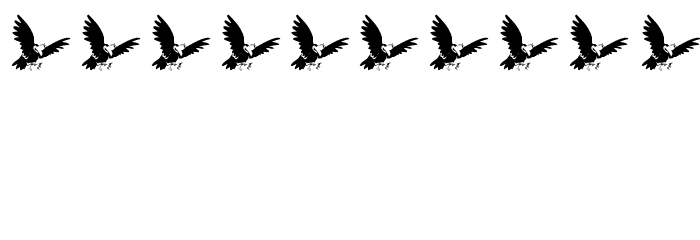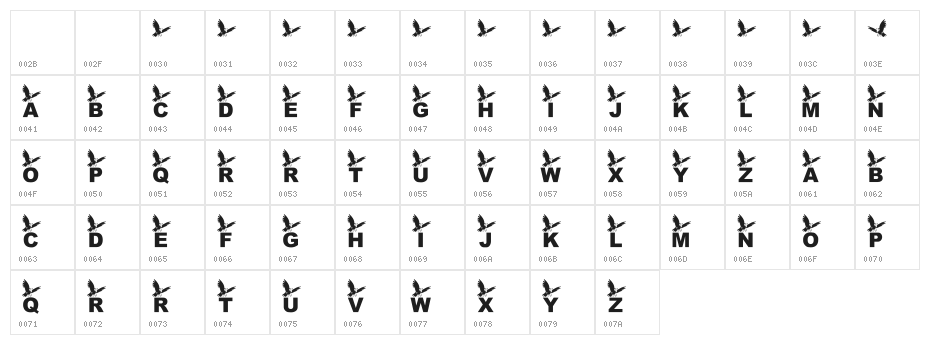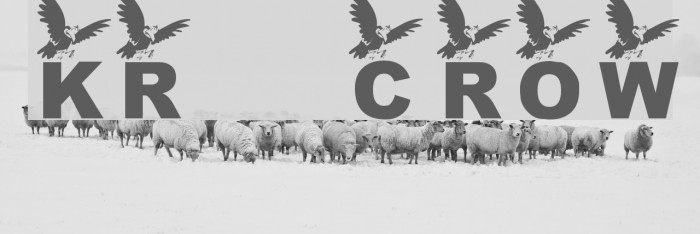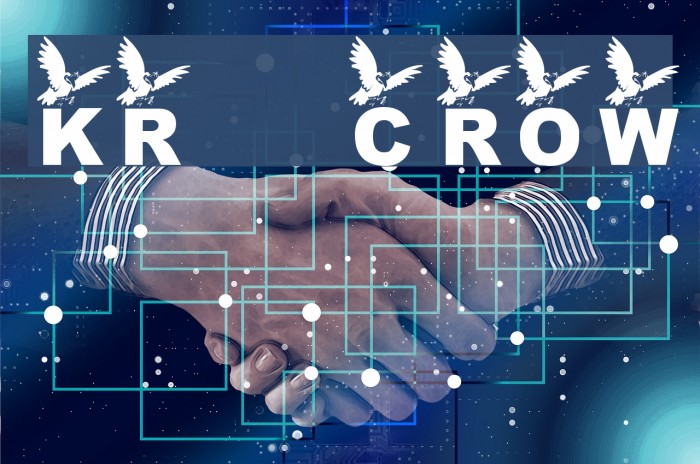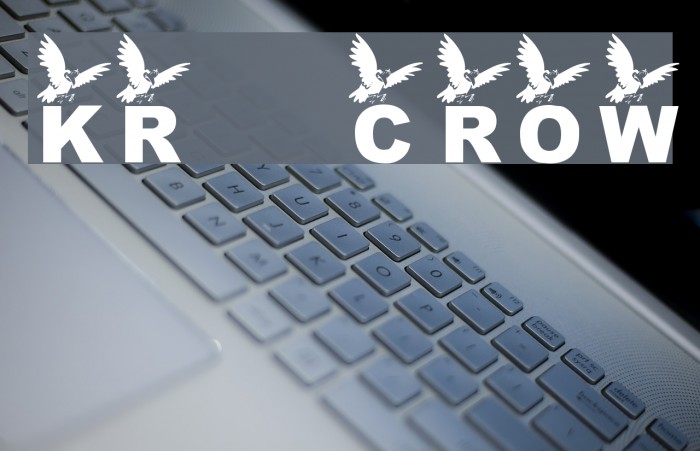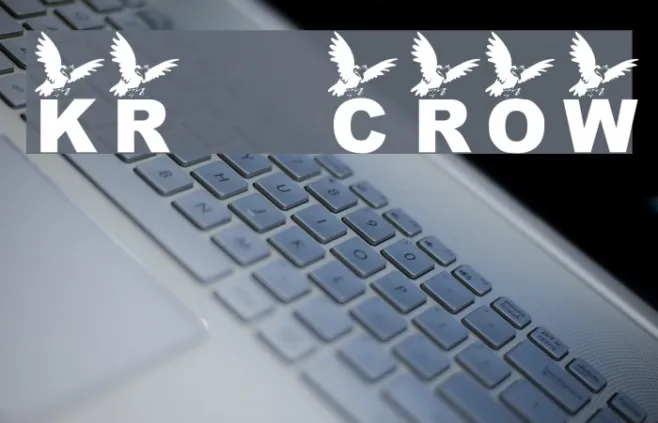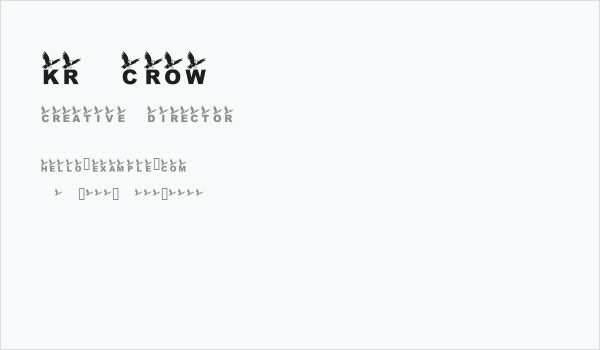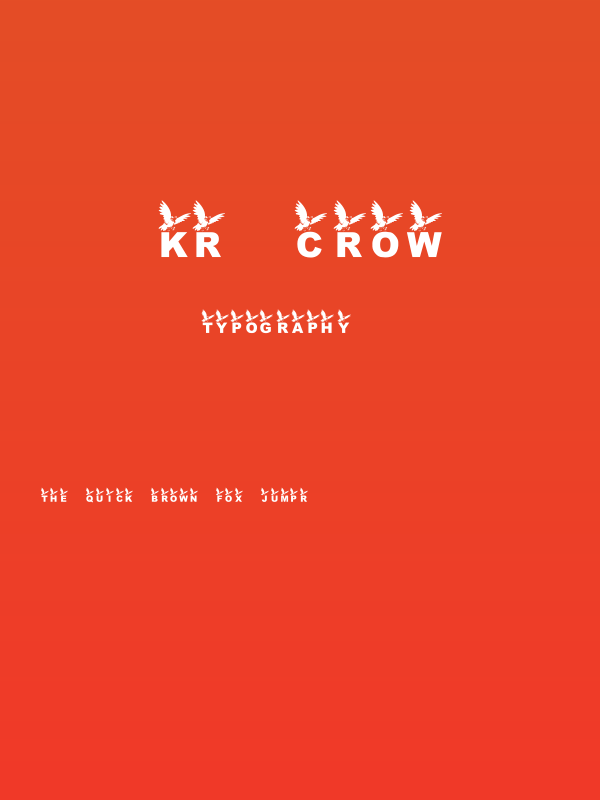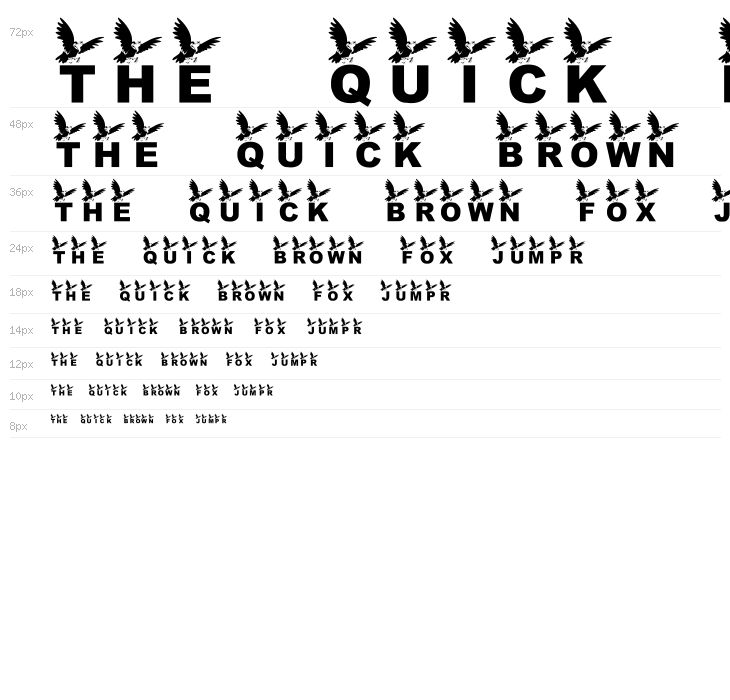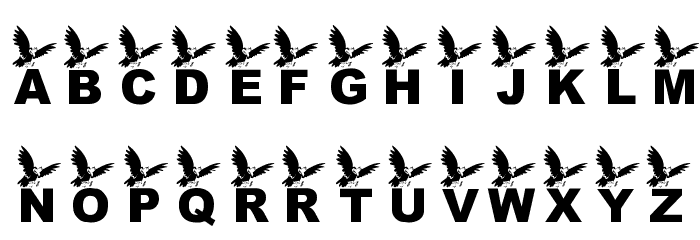
KR Crow Font
KR Crow Description
This font features bold, uppercase letters accompanied by a striking crow silhouette. Each letter is paired with a detailed crow graphic, creating a unique and eye-catching design. The font is highly decorative, making it ideal for projects that require a bold statement. The letters are evenly spaced, ensuring readability despite the intricate design elements. The overall style is modern and artistic, with a touch of nature-inspired flair. This font is perfect for creative projects that aim to stand out and capture attention.
| Proposed Projects | Ideal for posters, album covers, branding, and any project requiring a bold, artistic touch. |